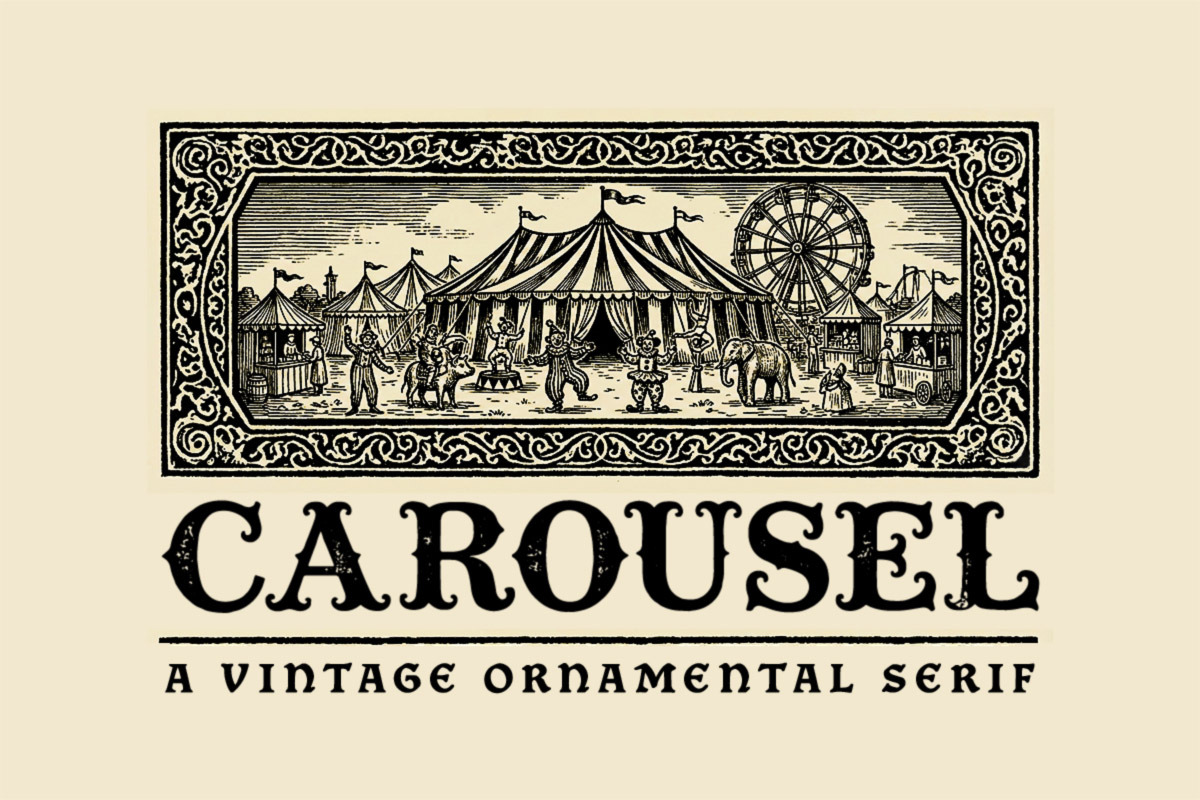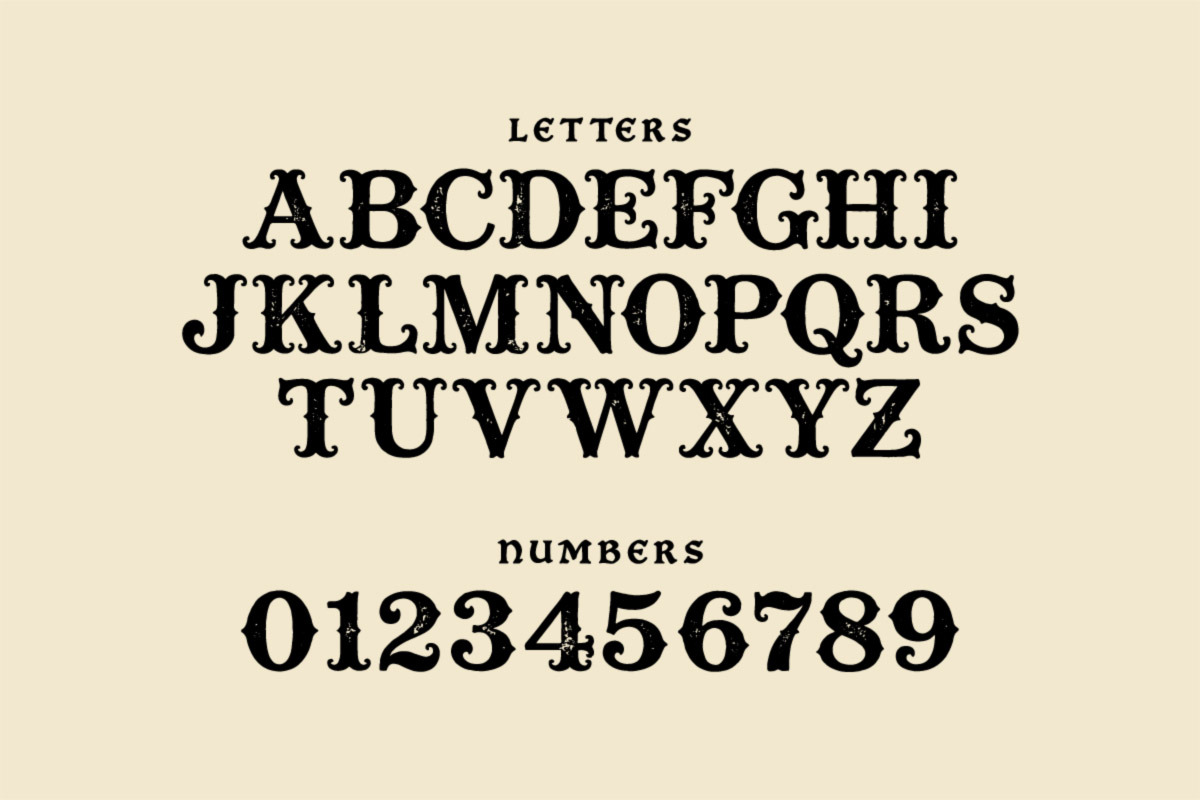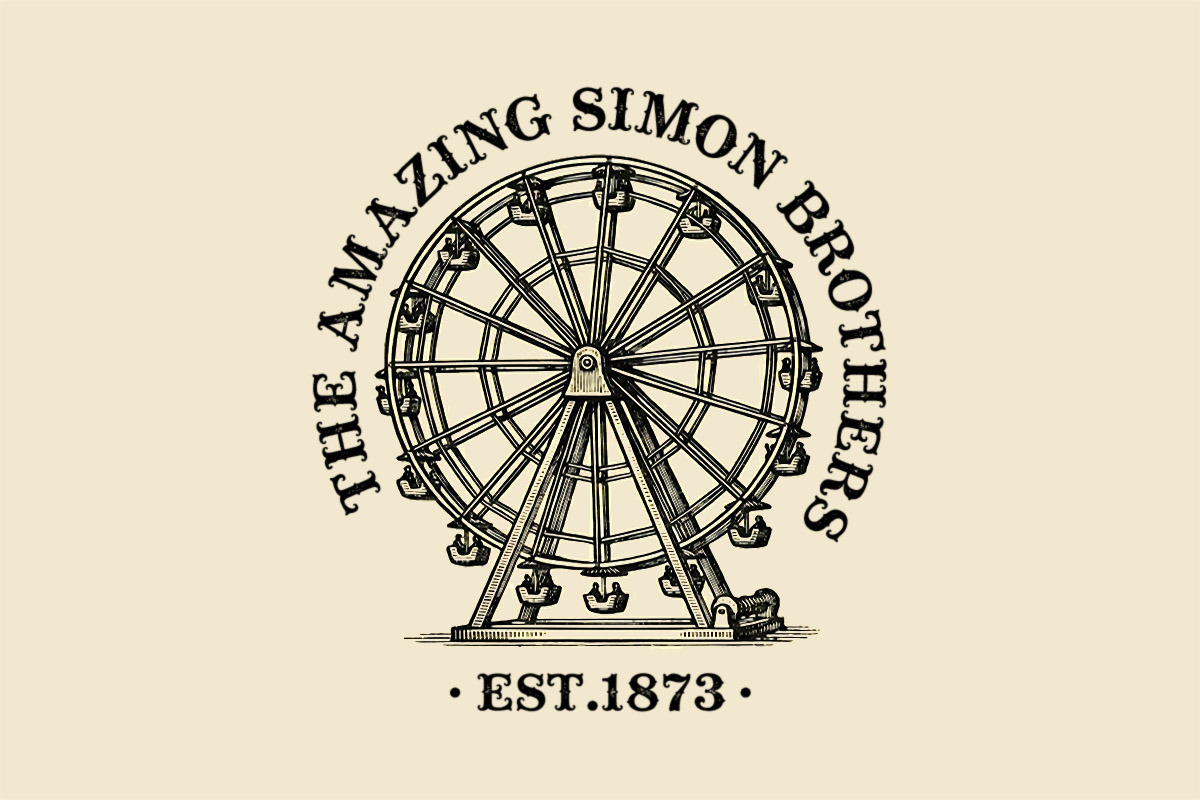
Carousel Typeface
Carousel is a vintage ornamental serif font inspired by classic circus posters, Victorian engraving, and old print design. With bold decorative character and timeless charm, it’s perfect for logos, labels, packaging, signage, posters, and heritage-style branding.